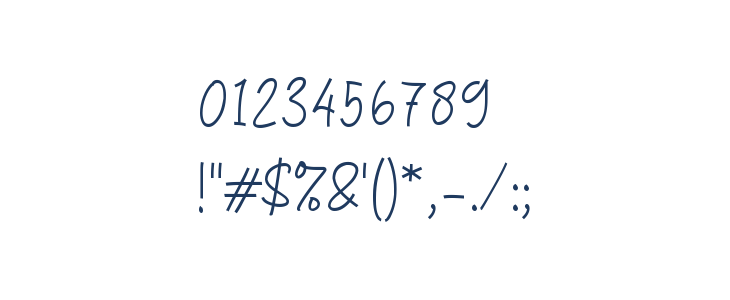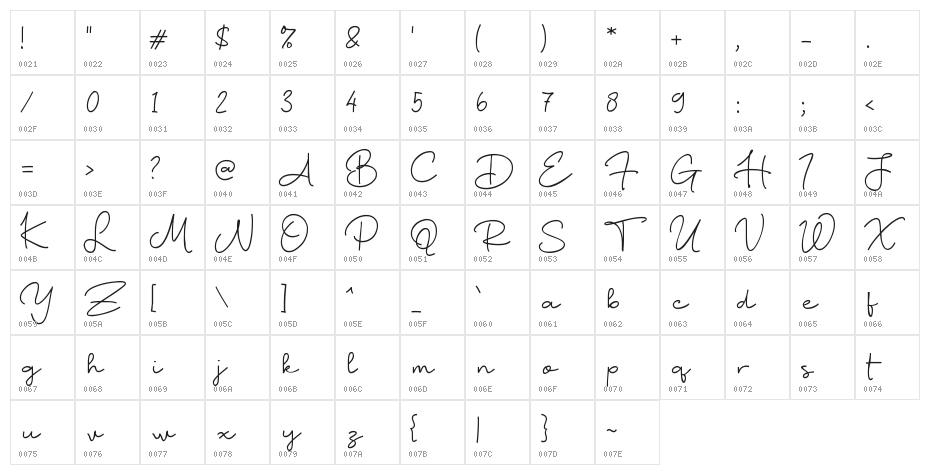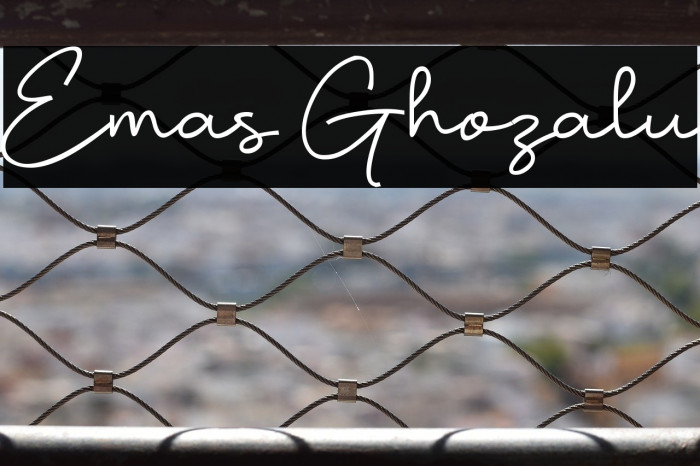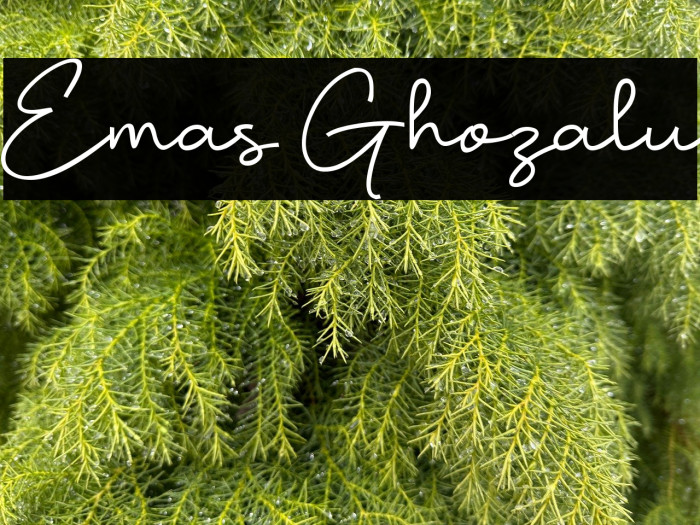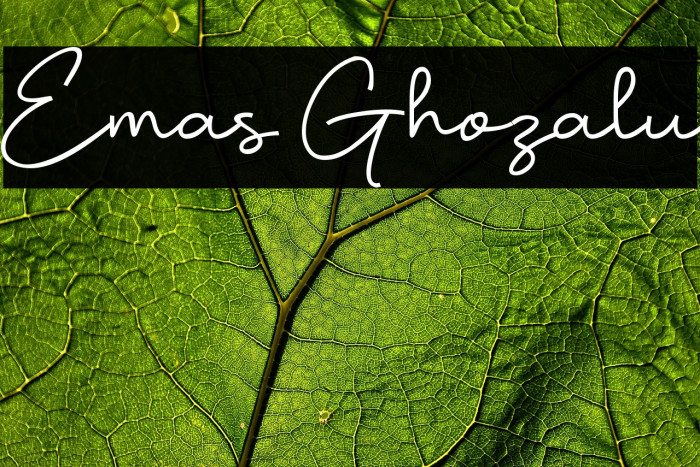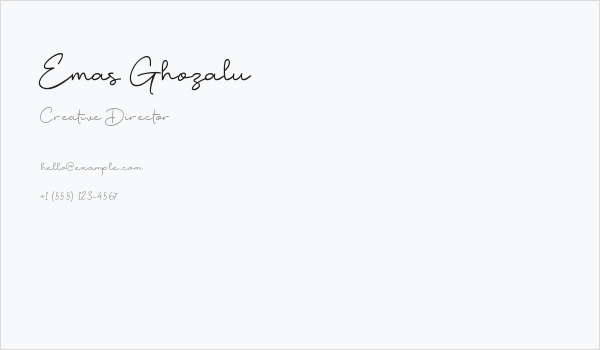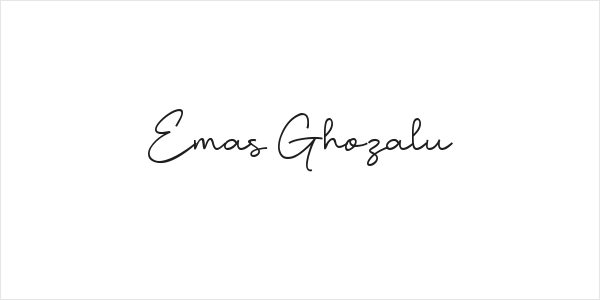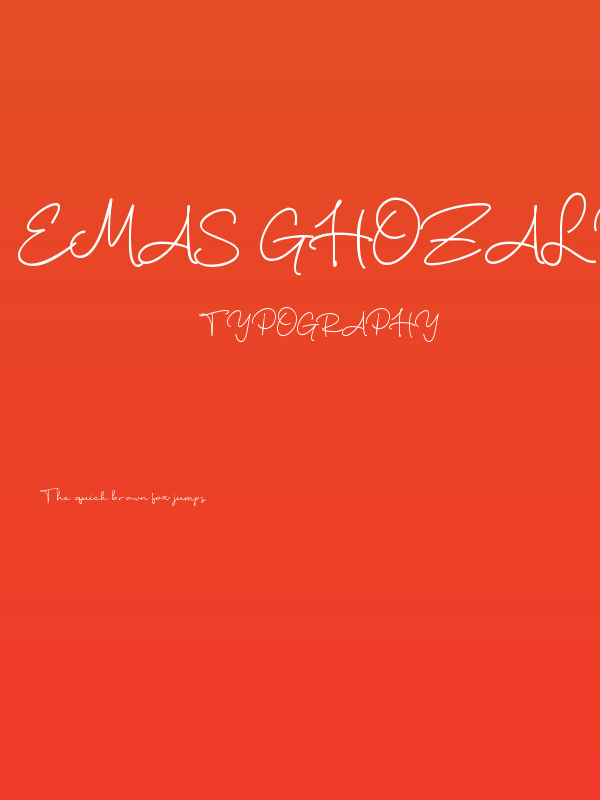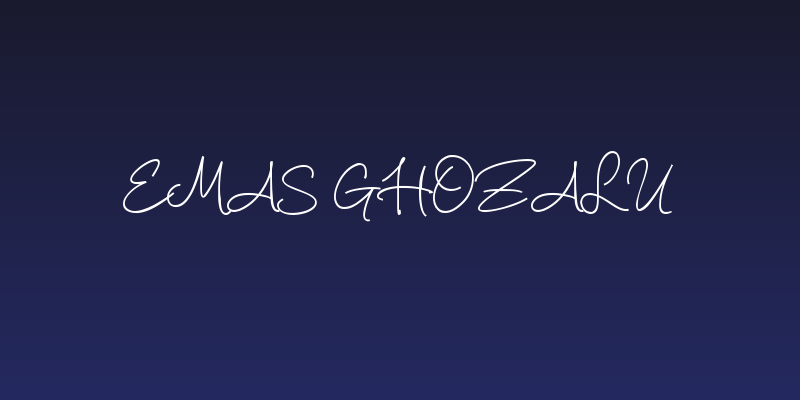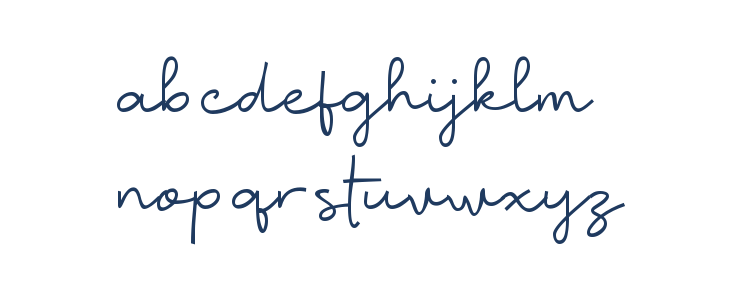
Emas Ghozalu Font
Emas Ghozalu Description
This font features a flowing, cursive style that mimics elegant handwriting. The uppercase letters are tall and slender, with graceful loops and curves that add a touch of sophistication. The lowercase letters maintain a consistent flow, with smooth connections between each character, enhancing readability while preserving the script's artistic flair. The numerals are distinct and easy to read, complementing the overall aesthetic. Special characters are thoughtfully designed, maintaining the font's cohesive look. This font exudes a sense of elegance and charm, making it suitable for various creative applications.